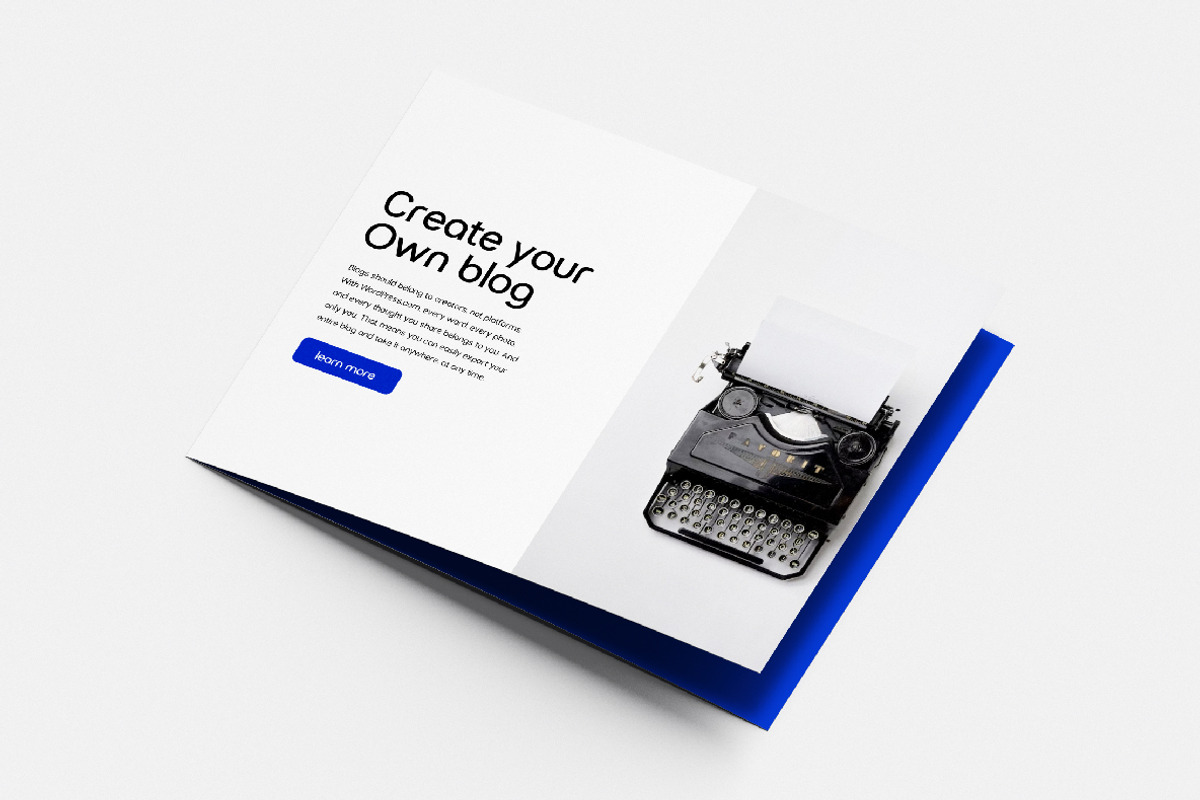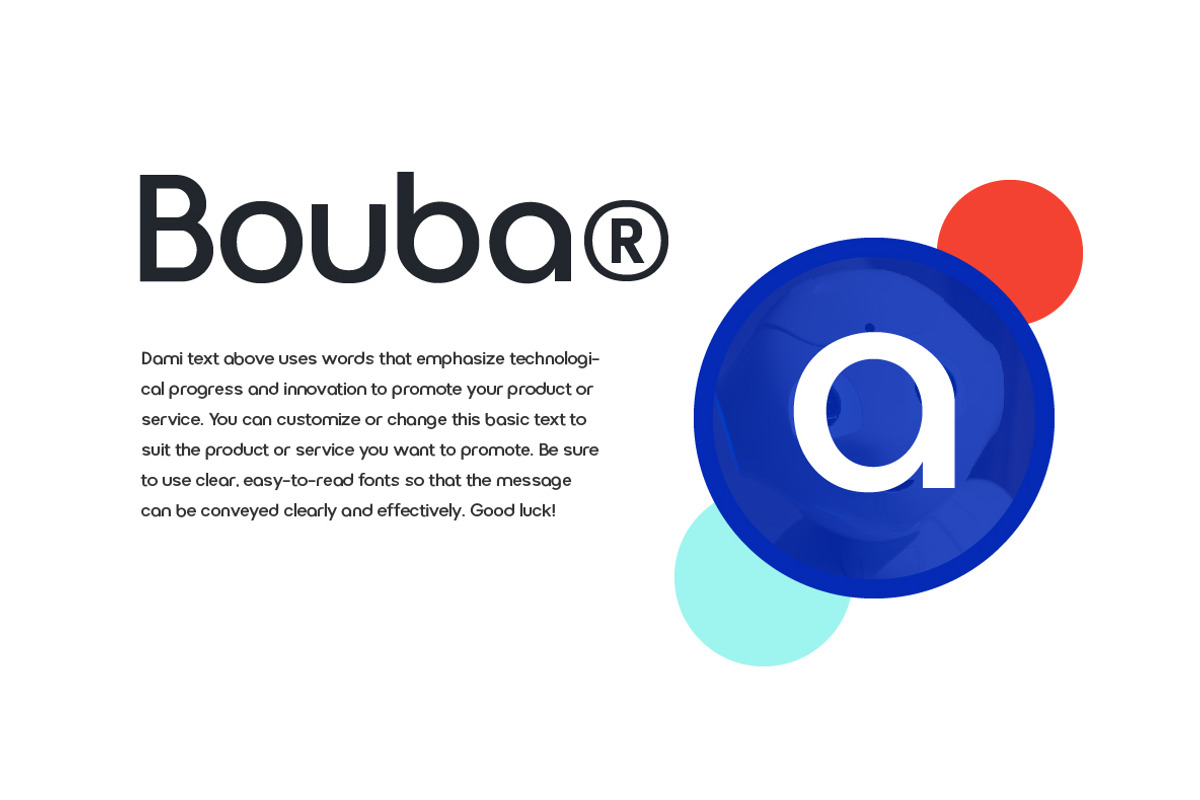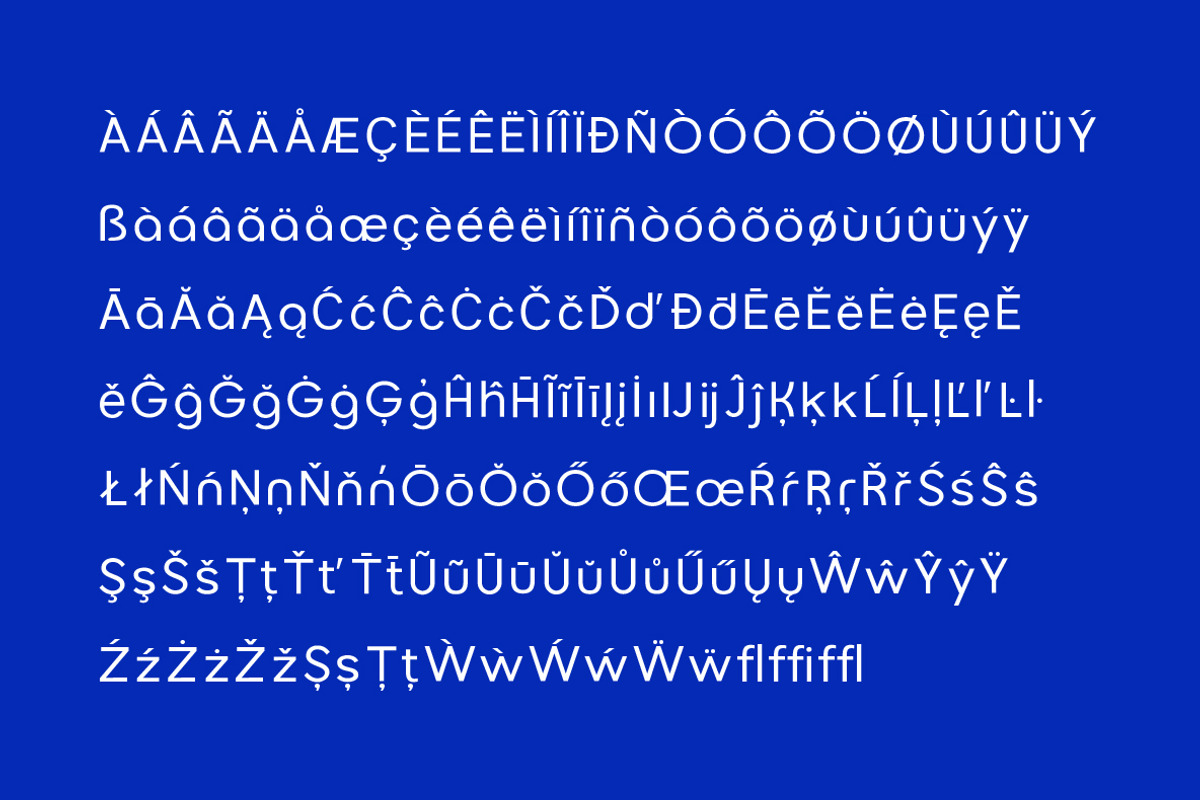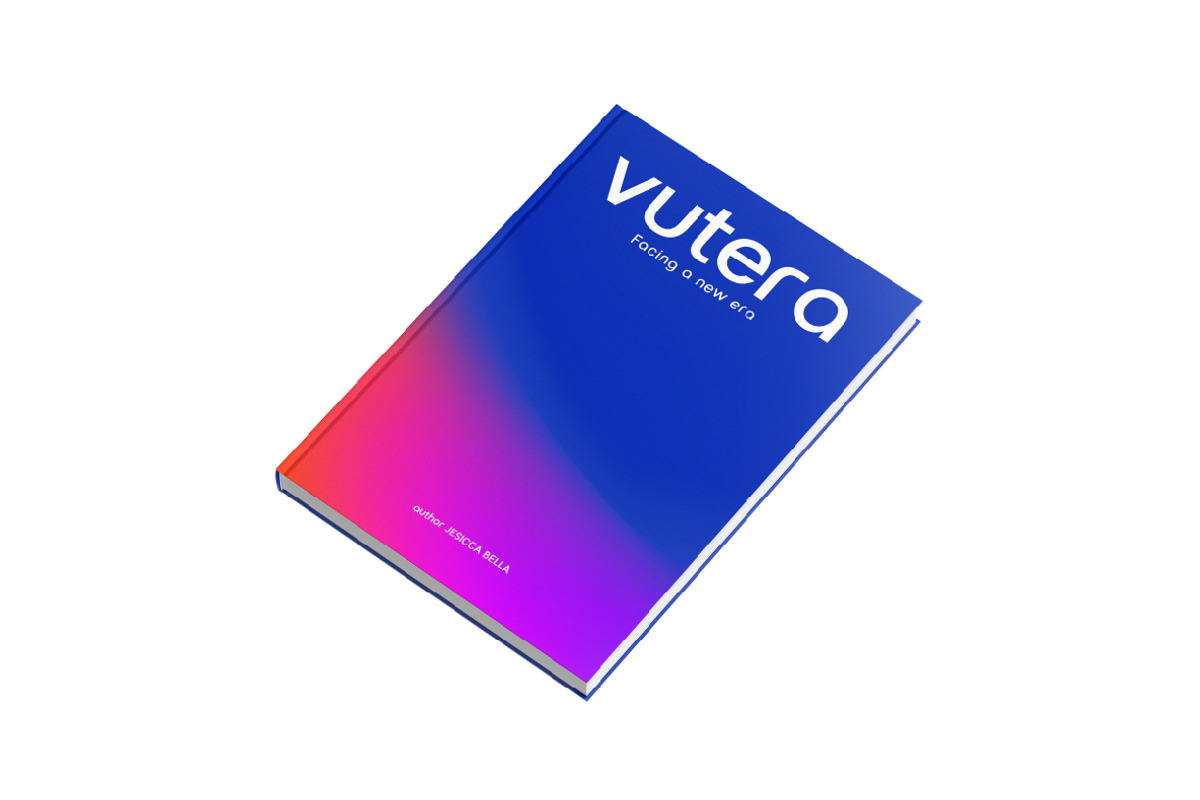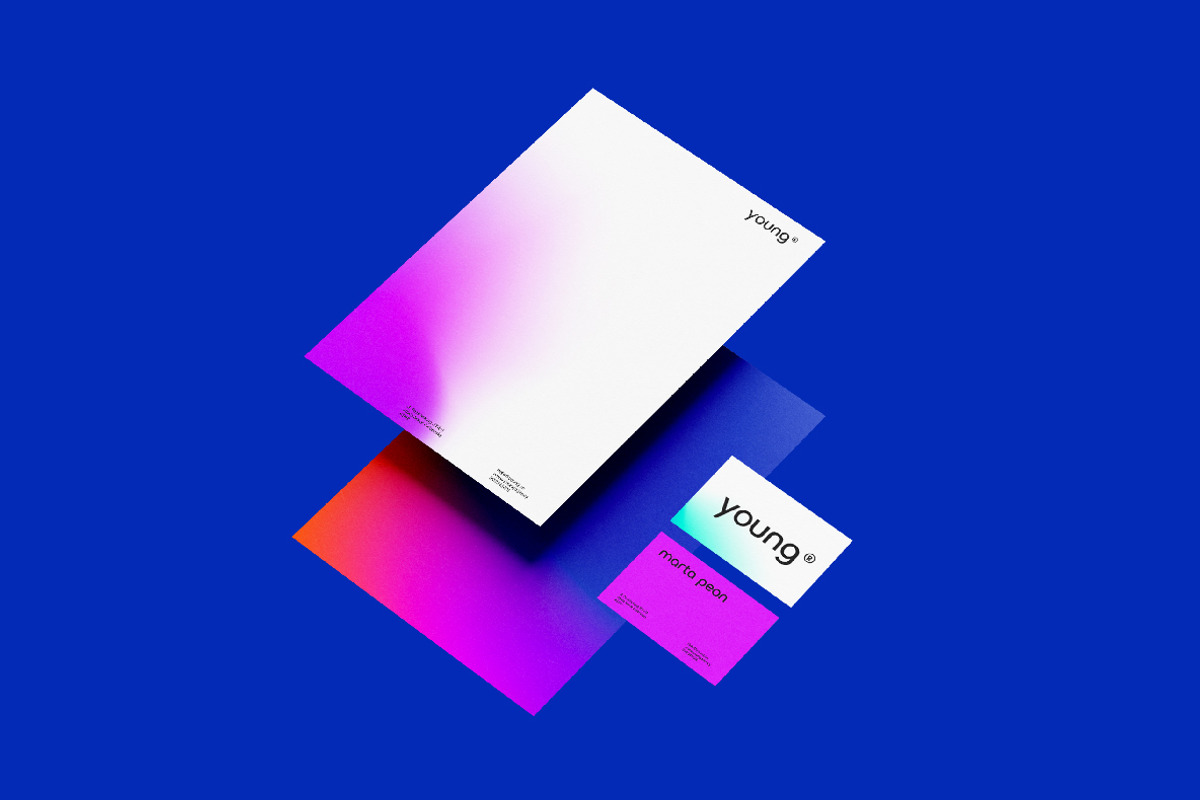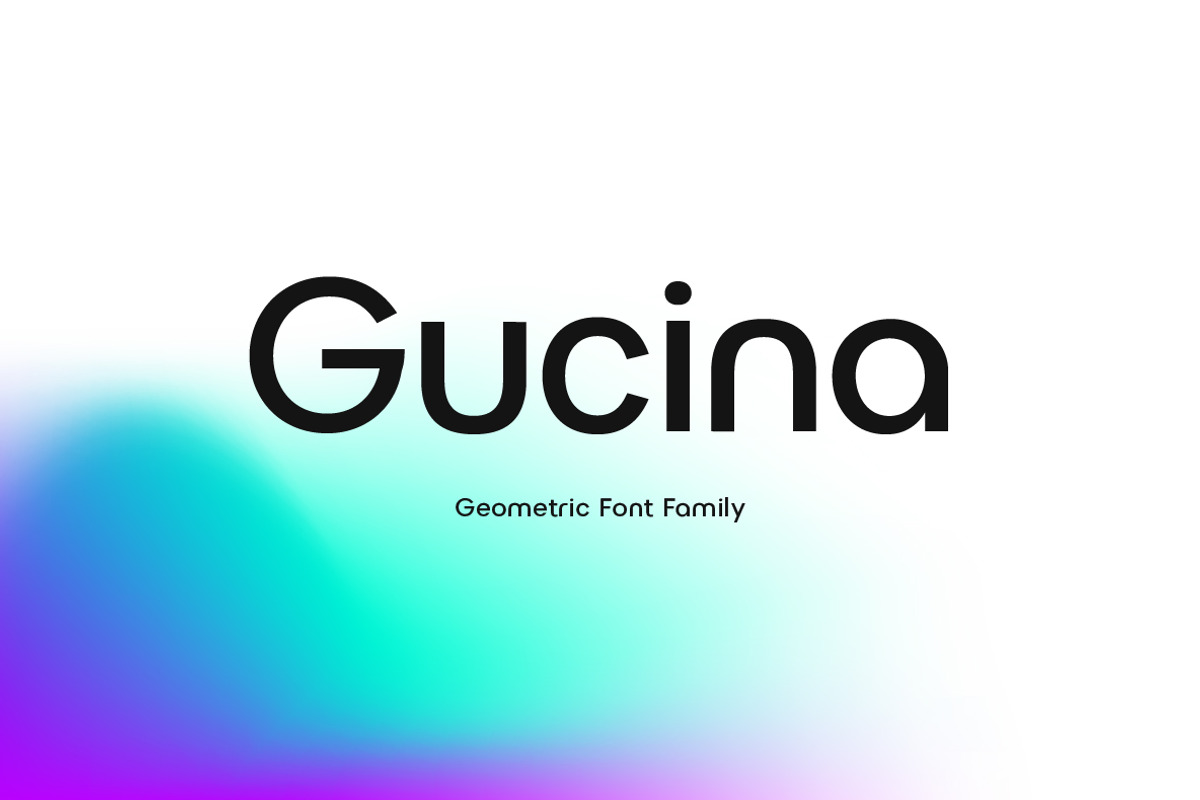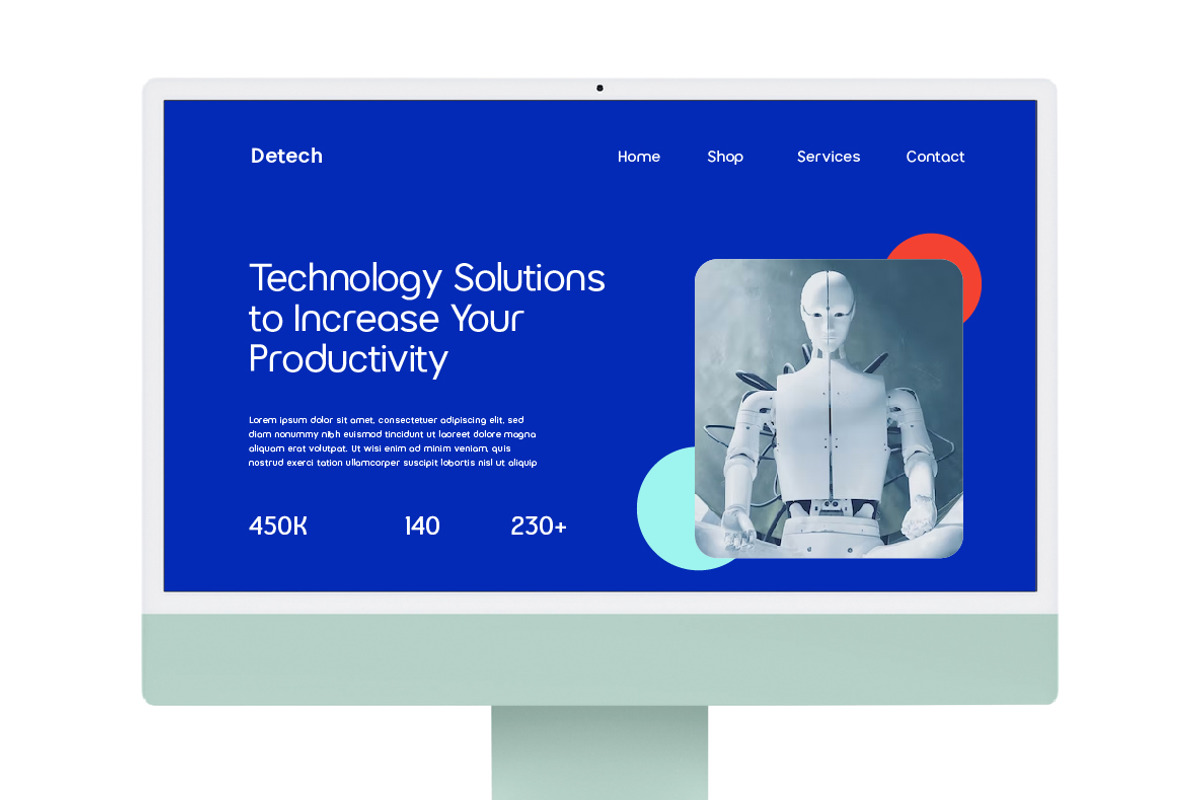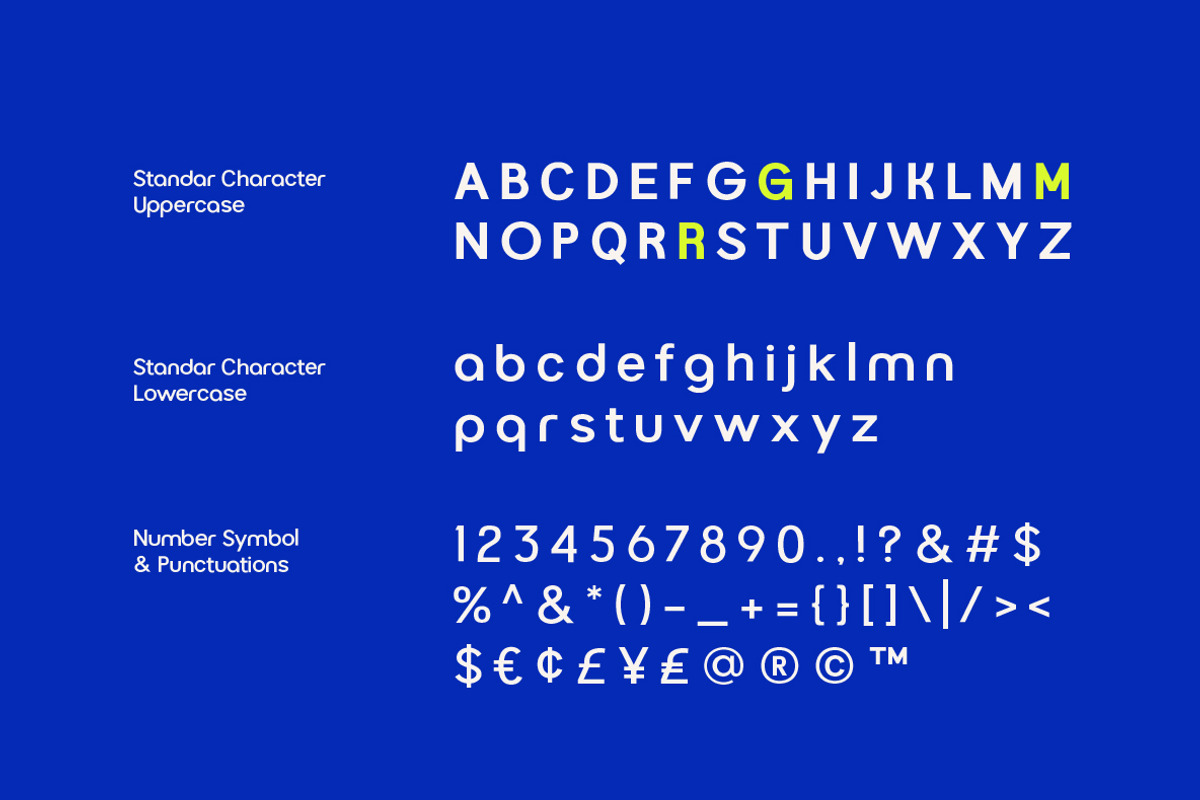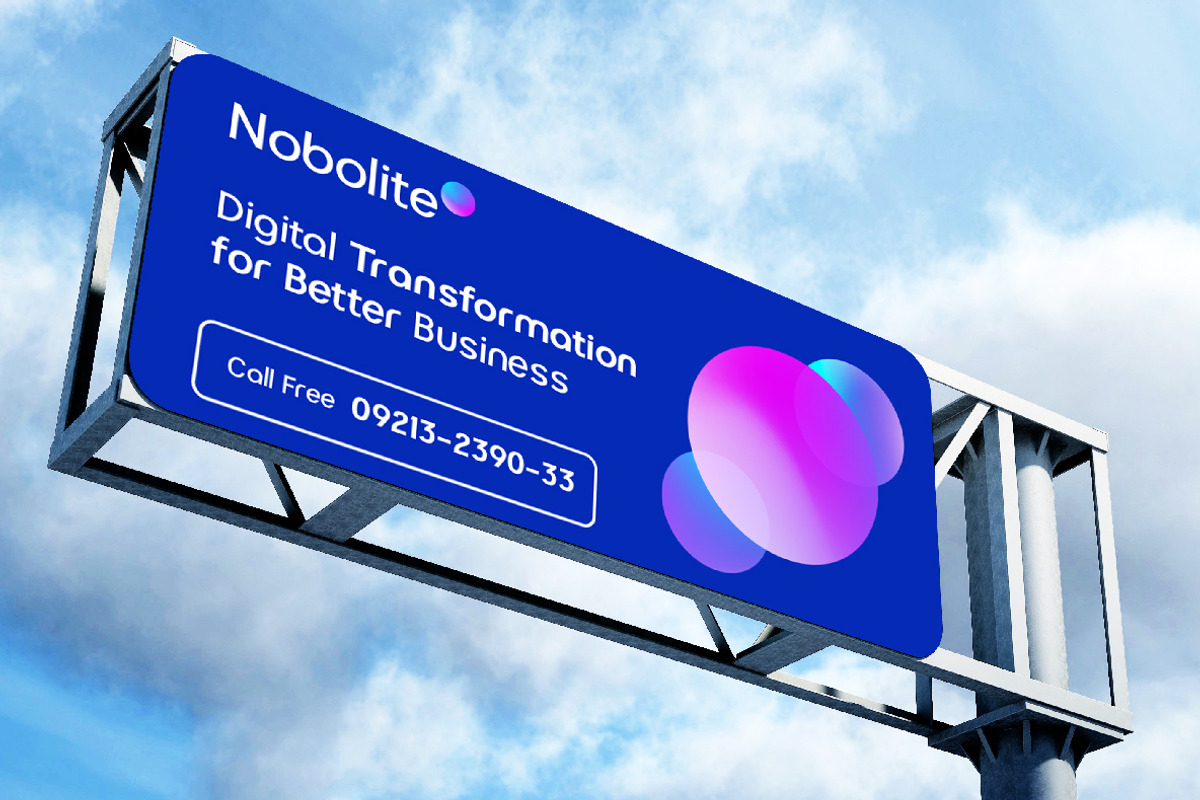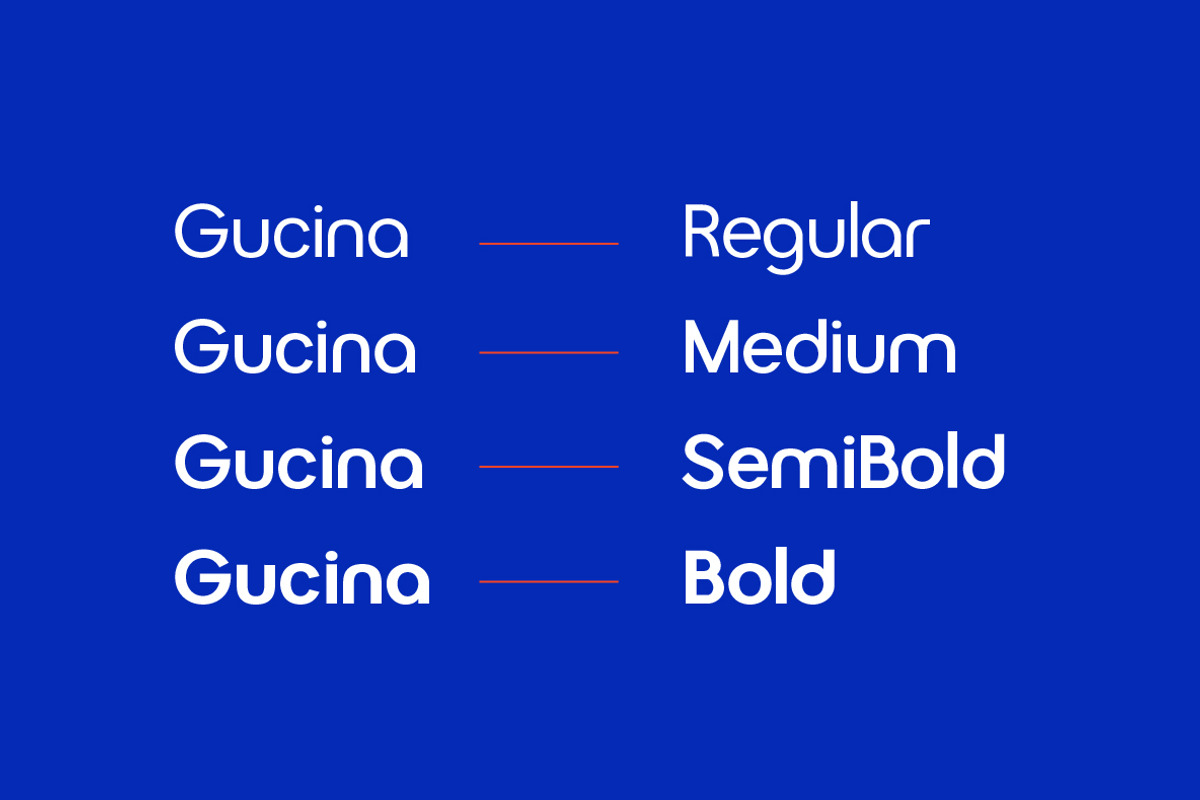
Gucina Geometric Font Family
Introducing the elegant and modern Gucina Geometric Font Family - a versatile typeface that will add a touch of sophistication to your designs. With its clean lines and geometric shapes, this font type is perfect for creating minimalistic logos, advertisements, web designs, and branding materials.
The Gucina Geometric Font Family comes in a variety of weights, making them ideal for a variety of design projects. Whether you need a bold and impactful font for titles, or a light and airy font for body text, Gucina has you covered.
Its timeless design ensures that your creations will remain relevant and stylish for years to come.
Don't settle for plain fonts - improve the quality of your designs with the Gucina Geometric Font Family.